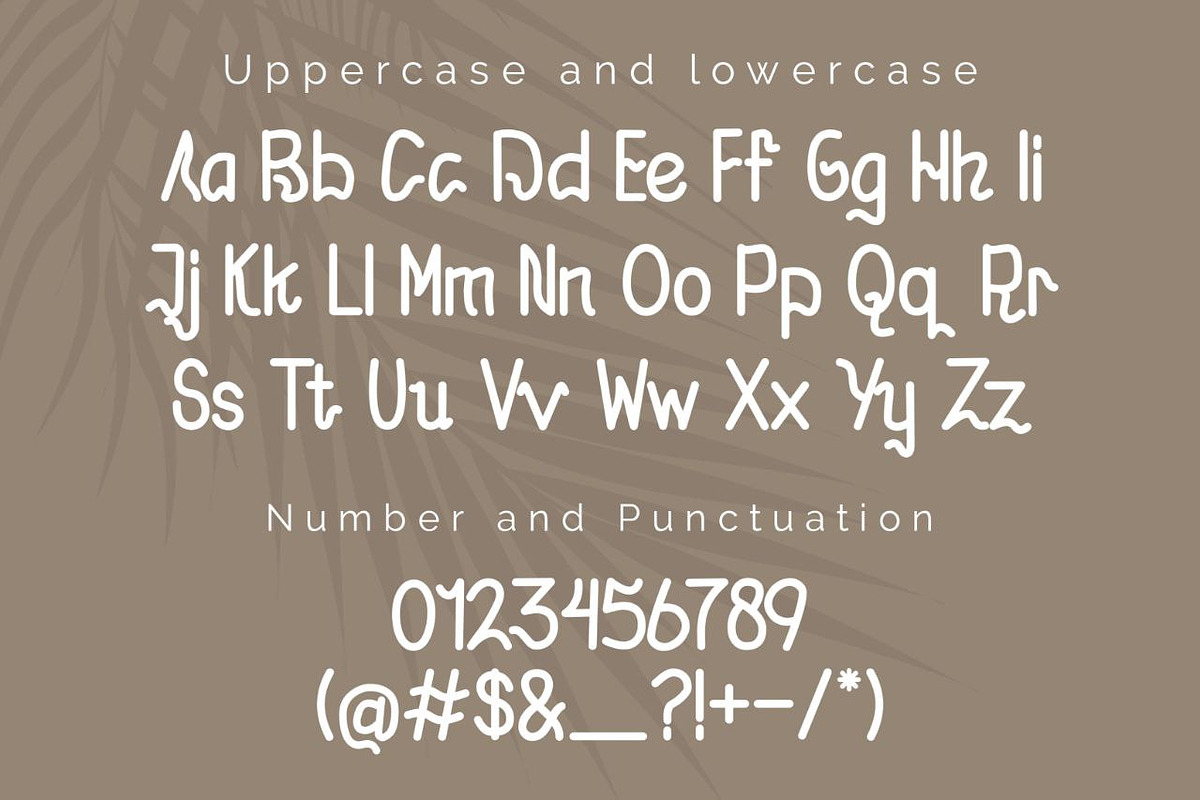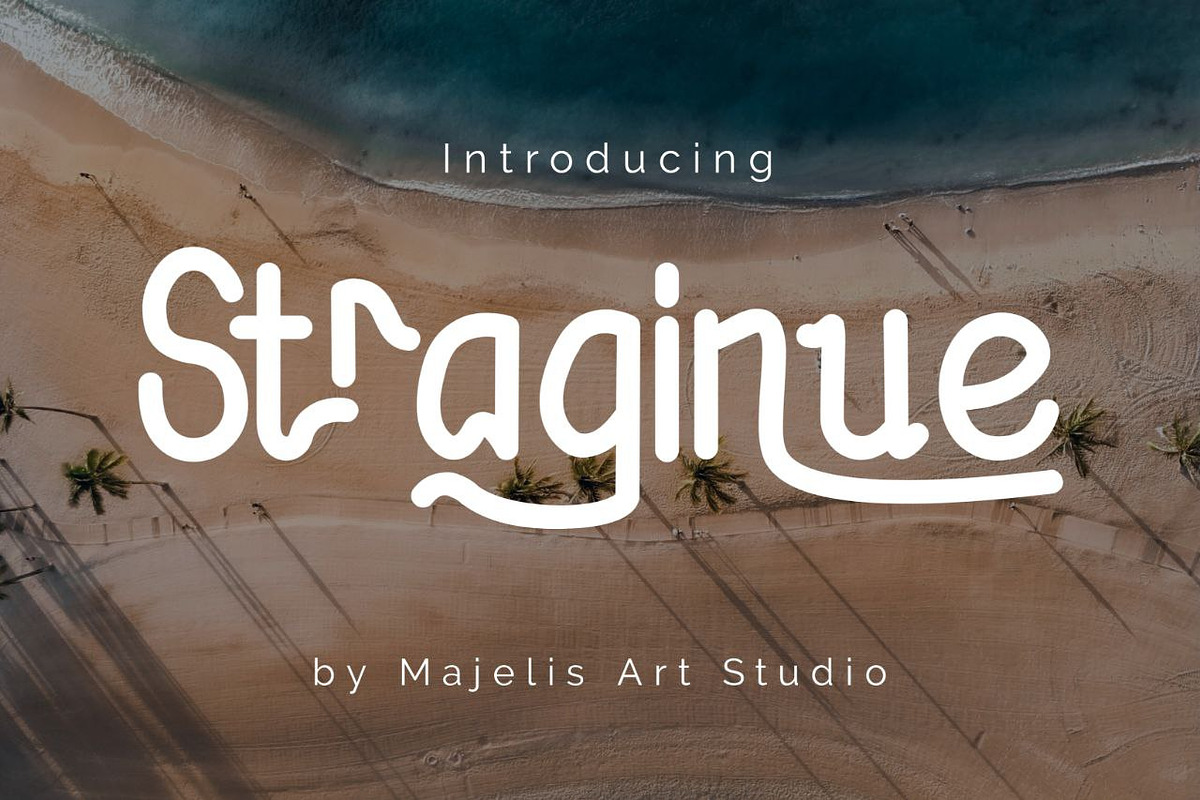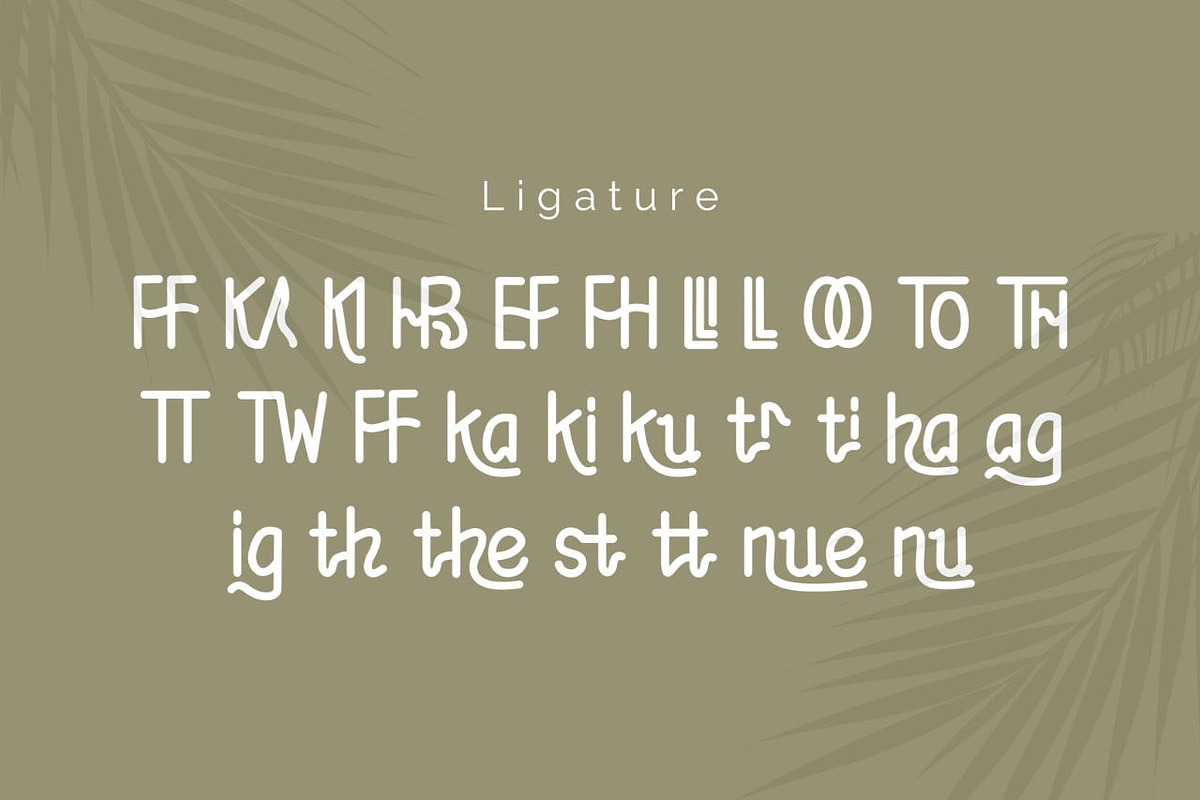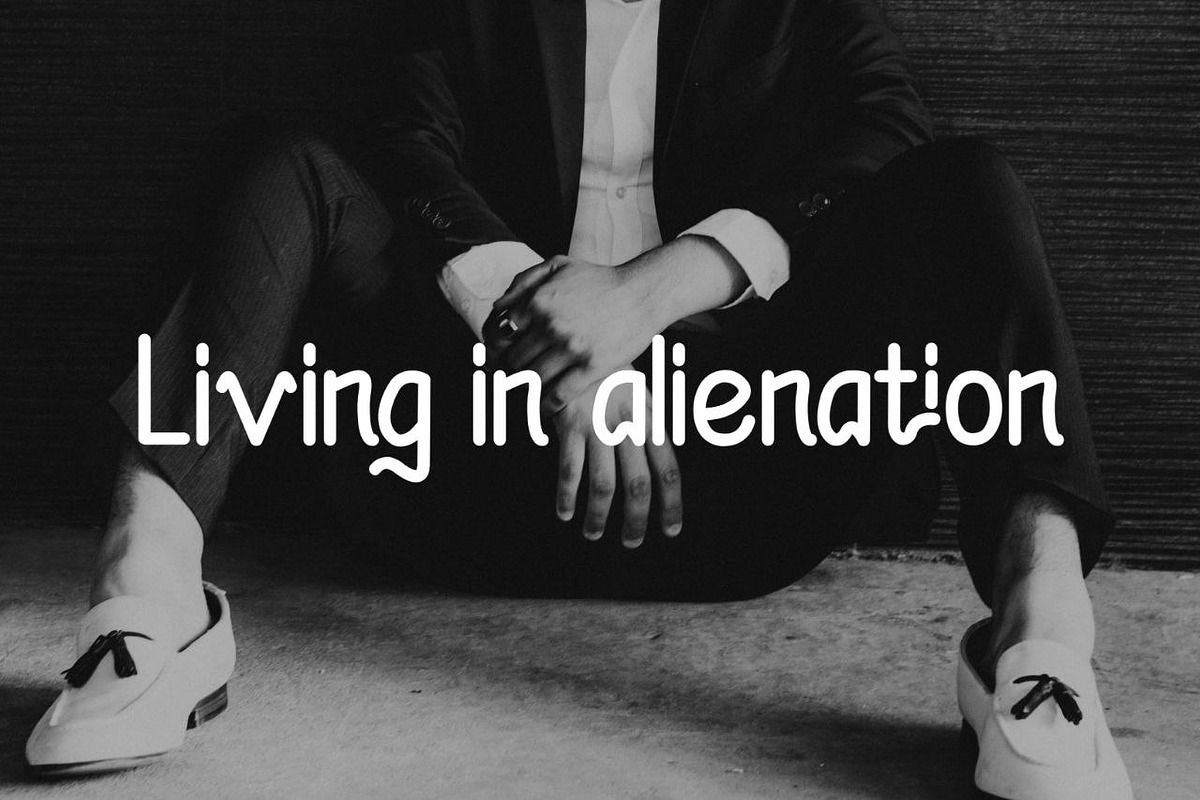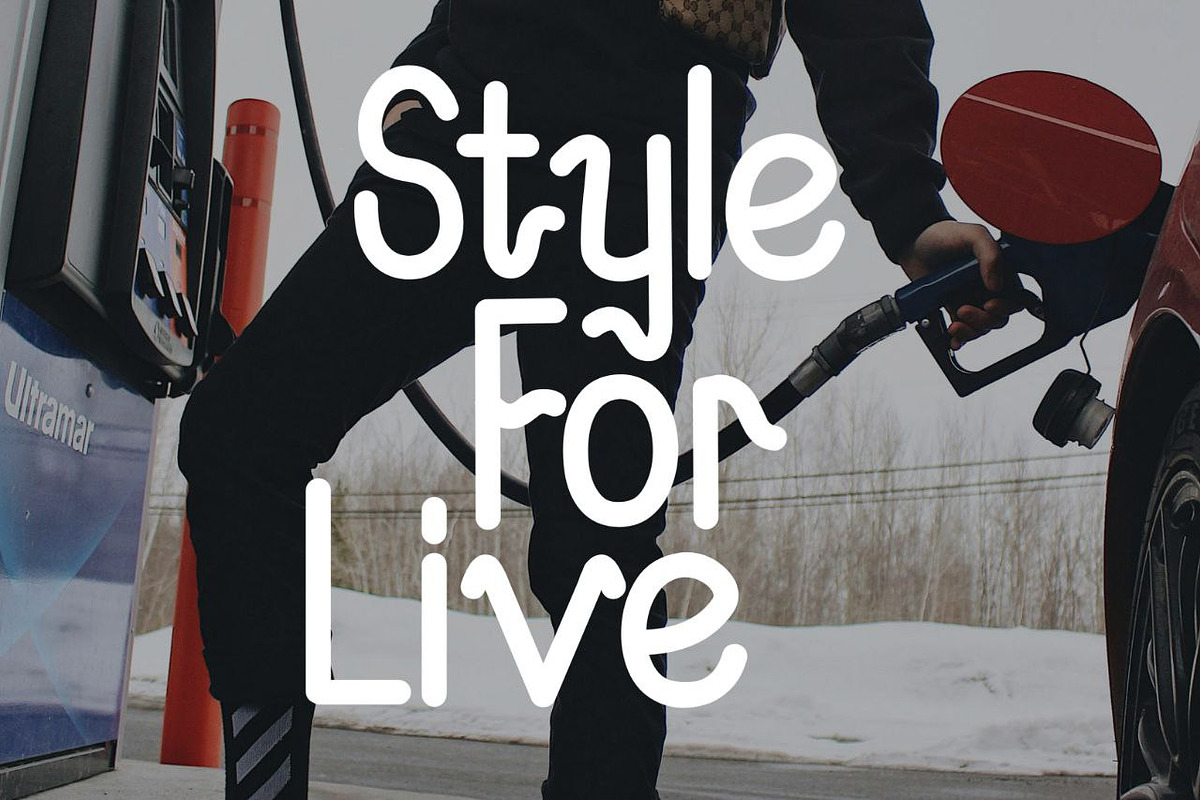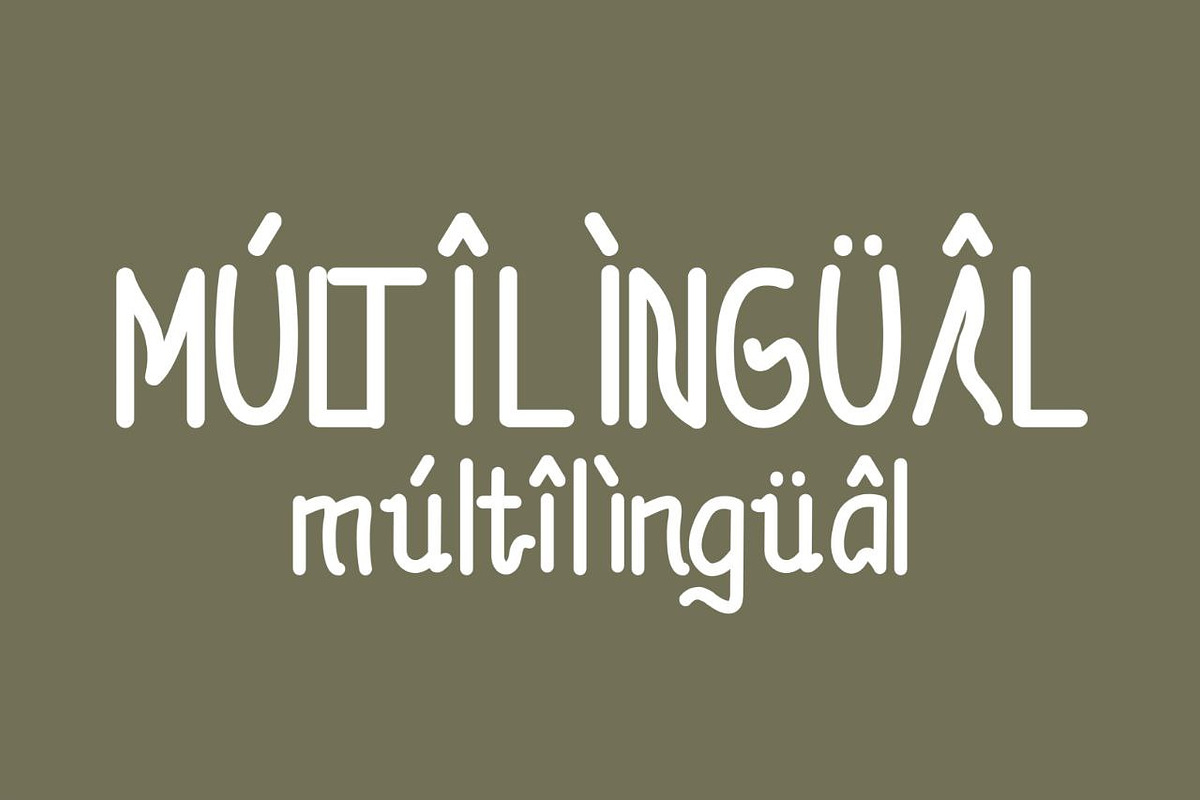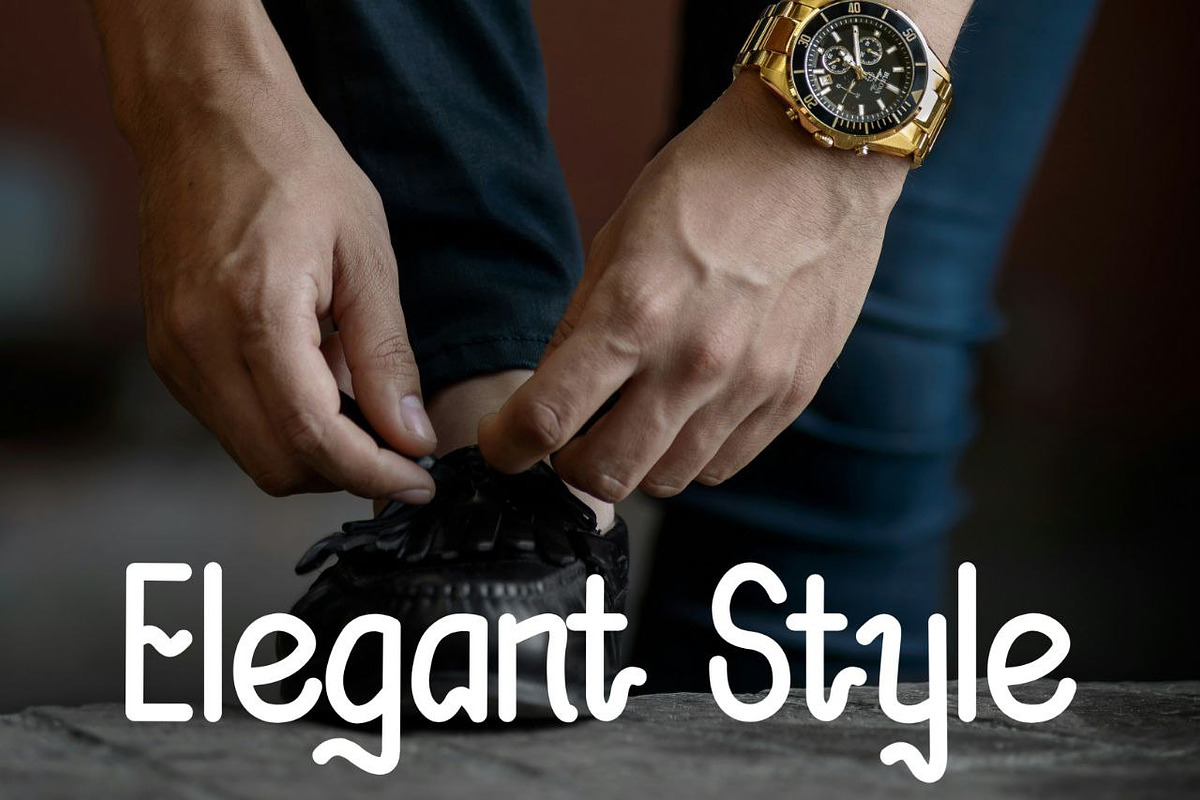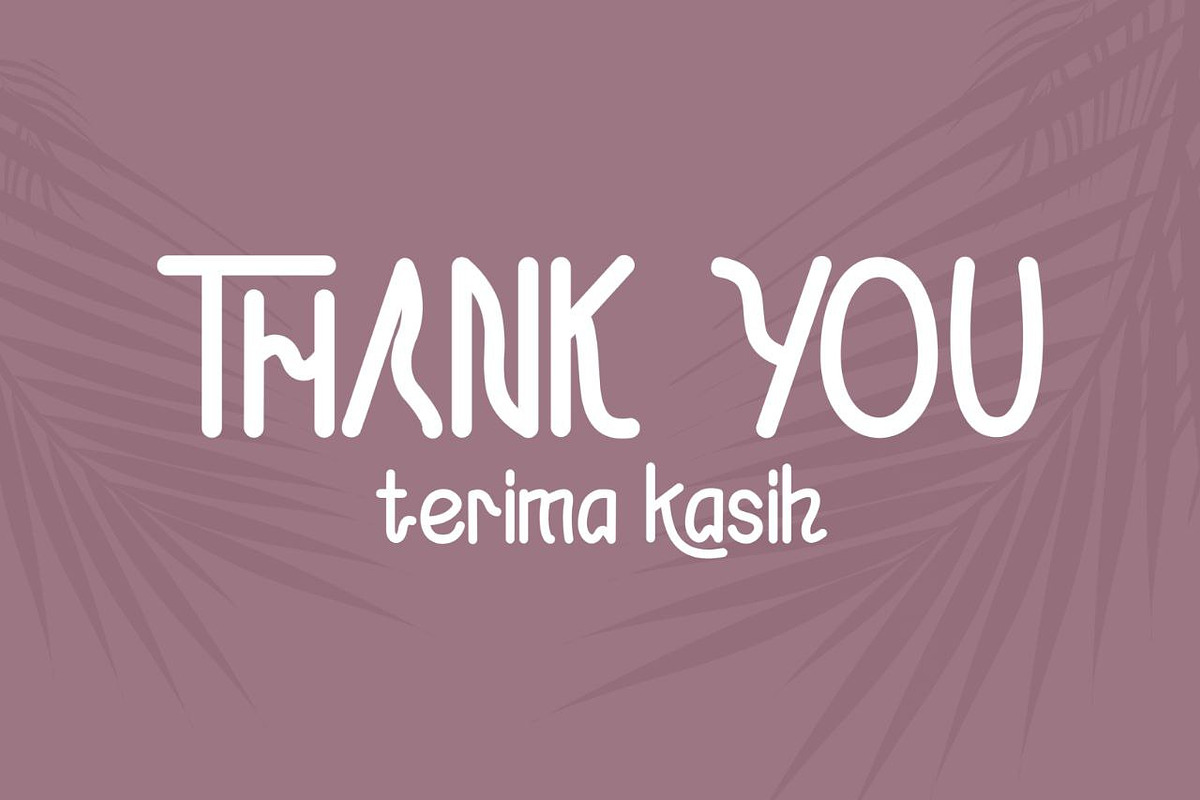
Straginue
Straginue is a font that has been refined from colored markers to a line without spots and fibers.
Of course we made this font with care and precision, this has an impact on the difficulty of making small lines full of curves very straight.
This font is suitable for use in paper subtitles, product or brand logos, film titles, social media use and much more. As for if you want to use it for a long text, I don't think it's very suitable, but if you like it then it's your right to have an opinion.
What's available in this font?
- Number and Punctuation
- Multilingal support
- And some Ligature letters